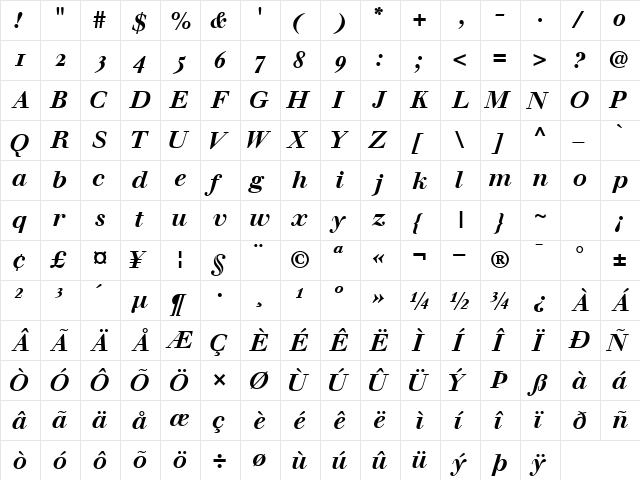
WalbaumOSSSK Bold Font Preview
WalbaumOSSSK Bold
Design Context for WalbaumOSSSK Typeface
WalbaumOSSSK is a composed and adaptable typeface that performs quietly and consistently across a wide range of design contexts. The heavy weight commands attention and anchors typographic hierarchies.